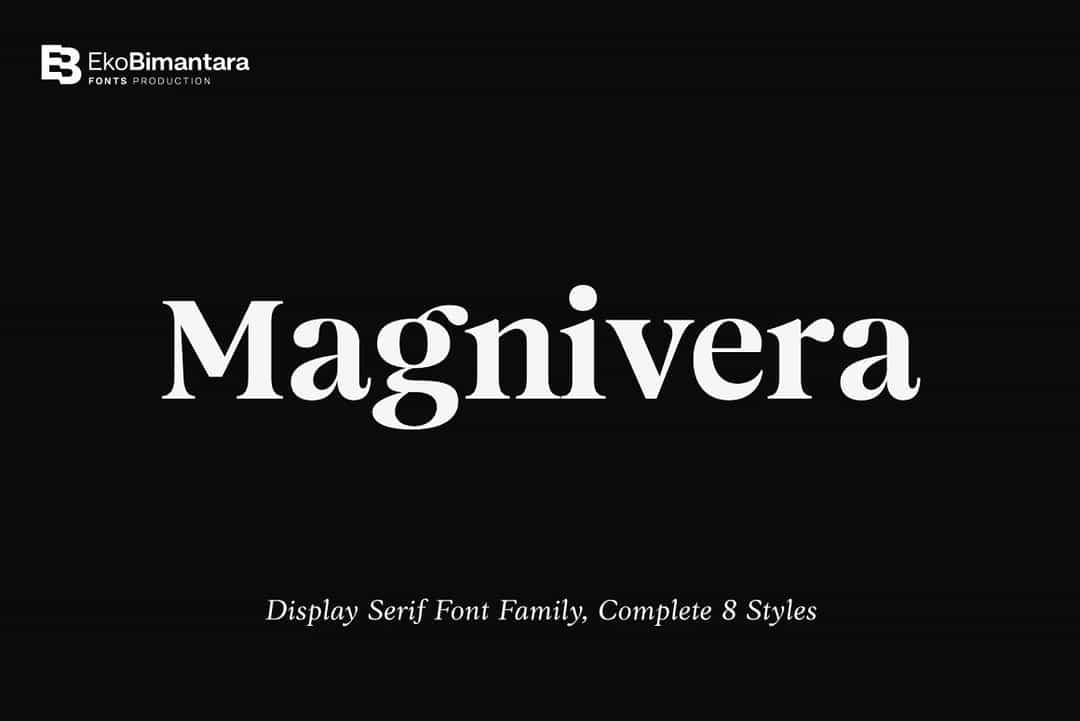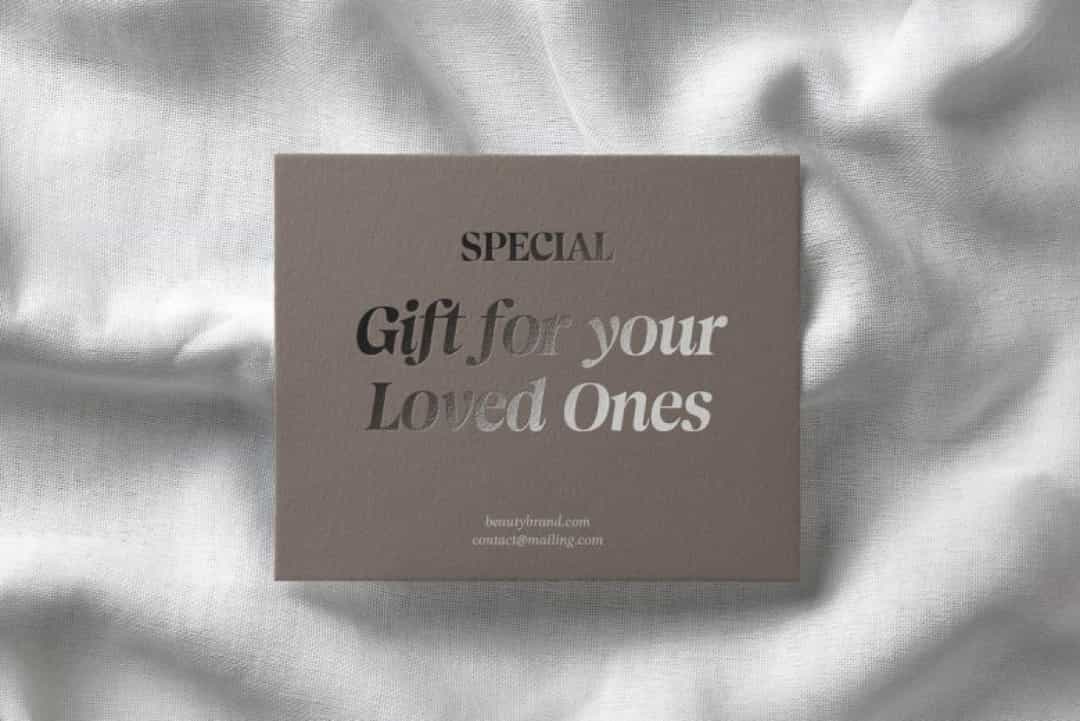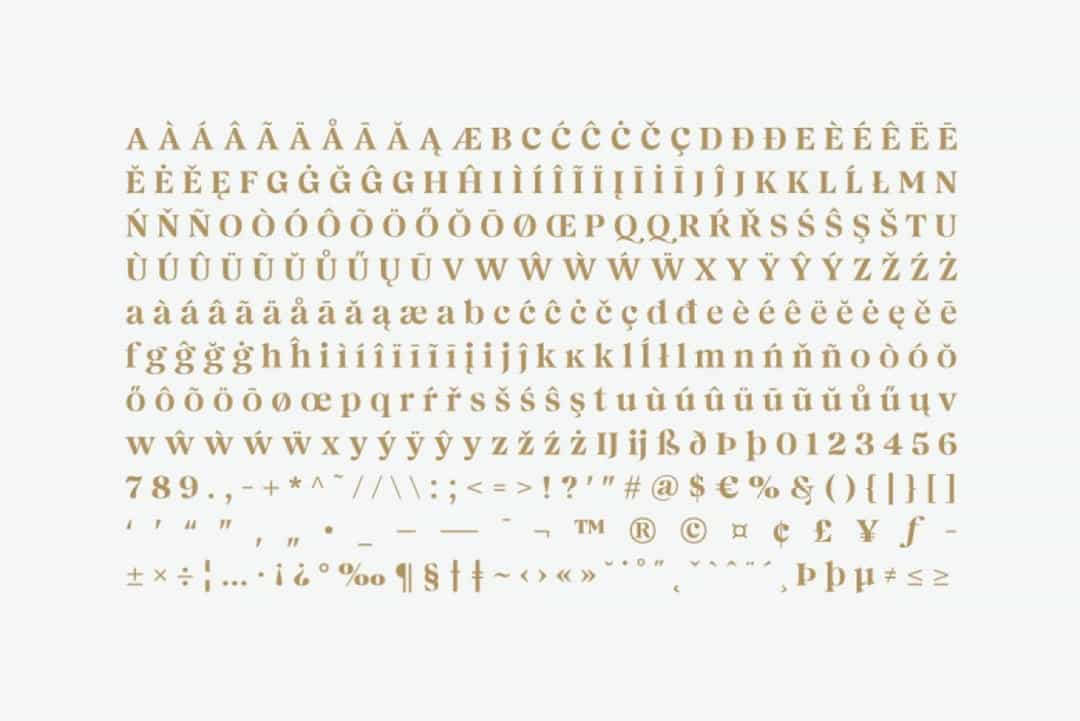
Magnivera is an e-display serif typeface family inspired by classic serifs with high contrast letterforms from earlier decades, creating bold and stylish text suitable for fashion conscious audiences. Magnivera comes in four styles from normal to heavy with matching italics to complete this versatile set.